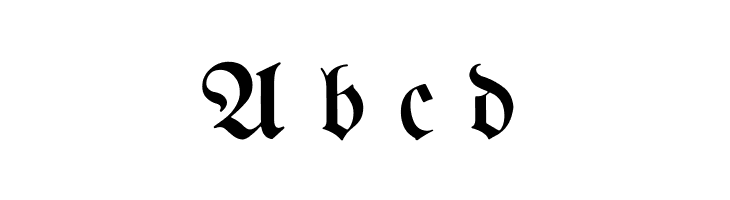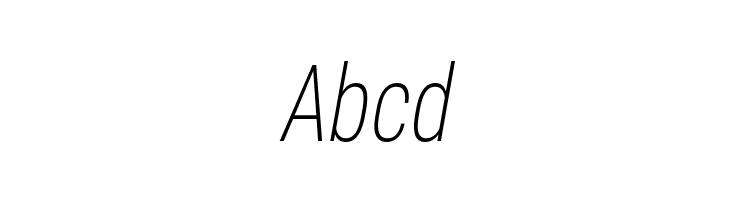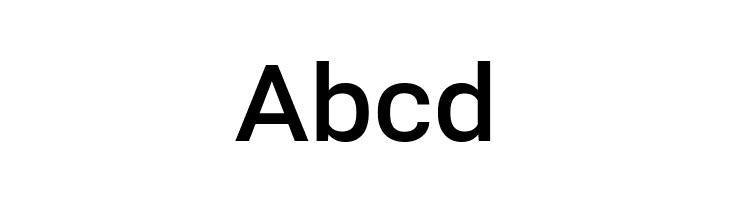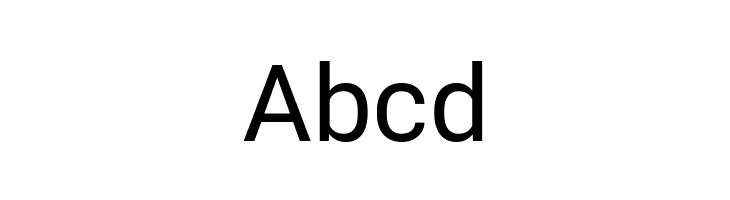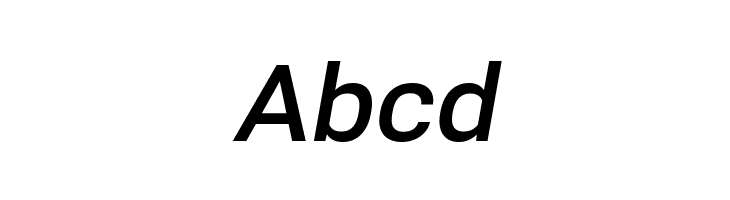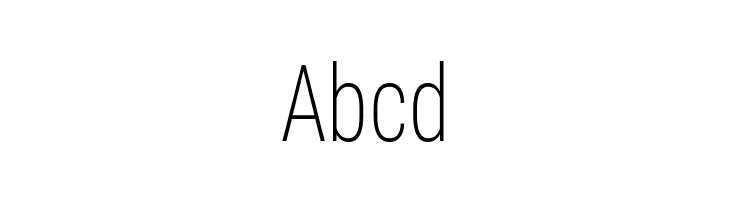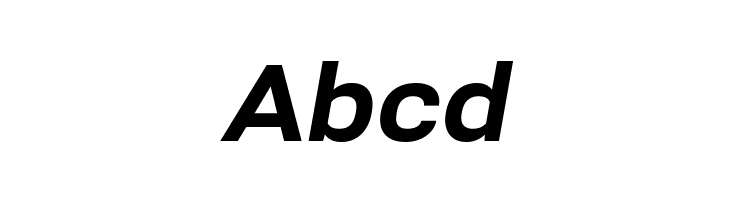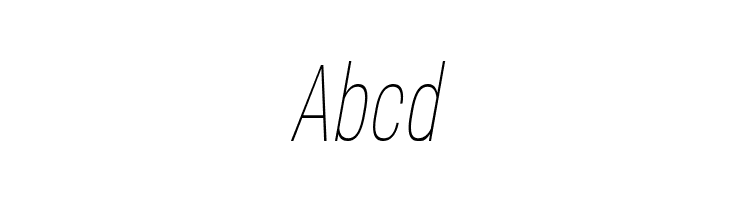
• Bert Sans ExtraBold Italic
A bold, italic sans-serif font with a modern and dynamic style.
• Bert Sans ExtraLight
A modern, extra light sans-serif font with clean lines and uniform spacing.
• Bert Sans ExtraLight Italic
A sleek, modern sans-serif font with an extra light and italicized style.
• Bert Sans Medium
A clean, modern sans-serif typeface with balanced proportions and high legibility.
• Bert Sans Medium Italic
A modern, medium-weight italic sans-serif font with a clean and dynamic style.
• Bert Sans SemiBold
A modern, semi-bold sans-serif font with clean lines and rounded edges.
• Bert Sans SemiBold Italic
A modern, semi-bold, italic sans-serif font with clean lines and a dynamic style.
• Bert Sans Thin
A thin, modern sans-serif font with a clean and elegant style.
• Bert Sans Thin Italic
A thin, italicized sans-serif font with a modern and elegant design.
• Bertha Melanie
A bold, expressive script font with a hand-drawn, fluid style.
• Berthalia
An elegant, flowing script font with graceful curves and ornate uppercase letters.
• Berthalia Italic
A graceful, handwritten script font with elegant, flowing letters.
• Berthalia Script
A charming and fluid script font with elegant, flowing letterforms.
• Berthalisa
A playful and elegant script font with flowing, intricate details.
• Berthan
A classic and elegant cursive script font with flowing letterforms.
• Berthany
A bold, flowing script font with elegant, cursive letterforms.
• Berthessa - Personal Use
An elegant, flowing script font with artistic flourishes and a playful yet sophisticated style.
• Berthold Mainzer Fraktur UNZ1A
A traditional Blackletter font with intricate, ornate letterforms and a historical aesthetic.
An ornate and decorative font with historical elegance.
A hand-drawn, brush-stroke style font with an organic and lively appearance.
• Beryl
A playful, bold handwritten font with a casual and approachable style.